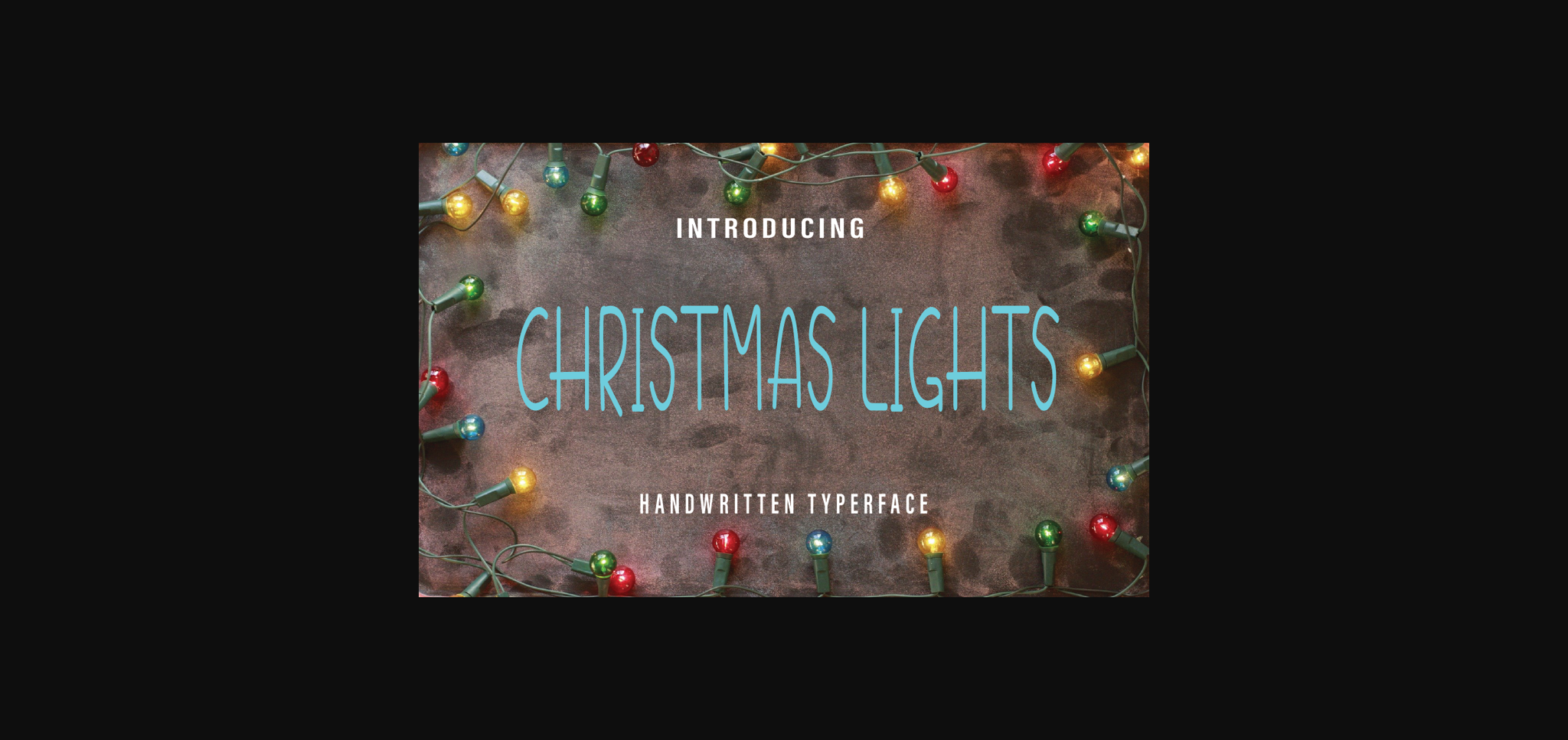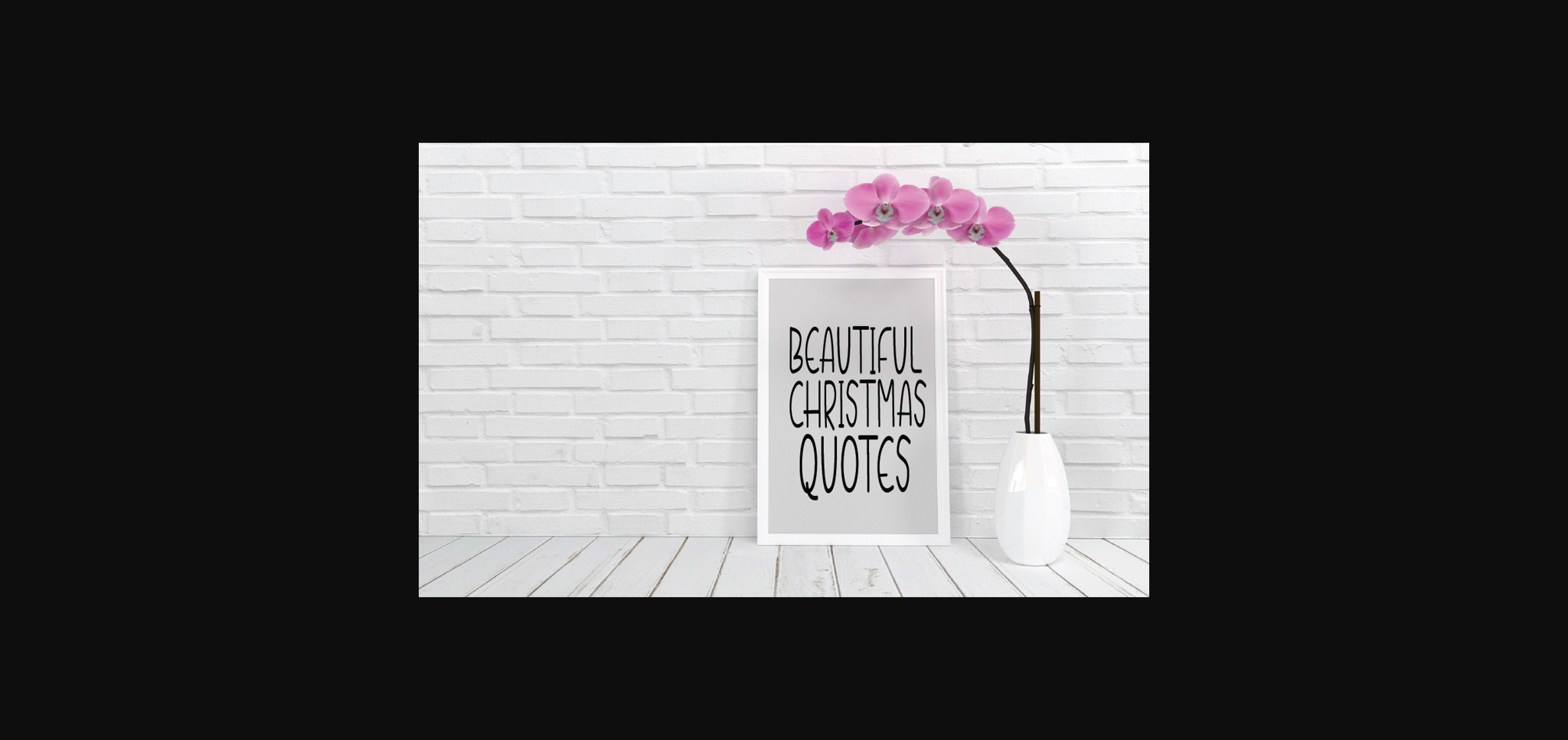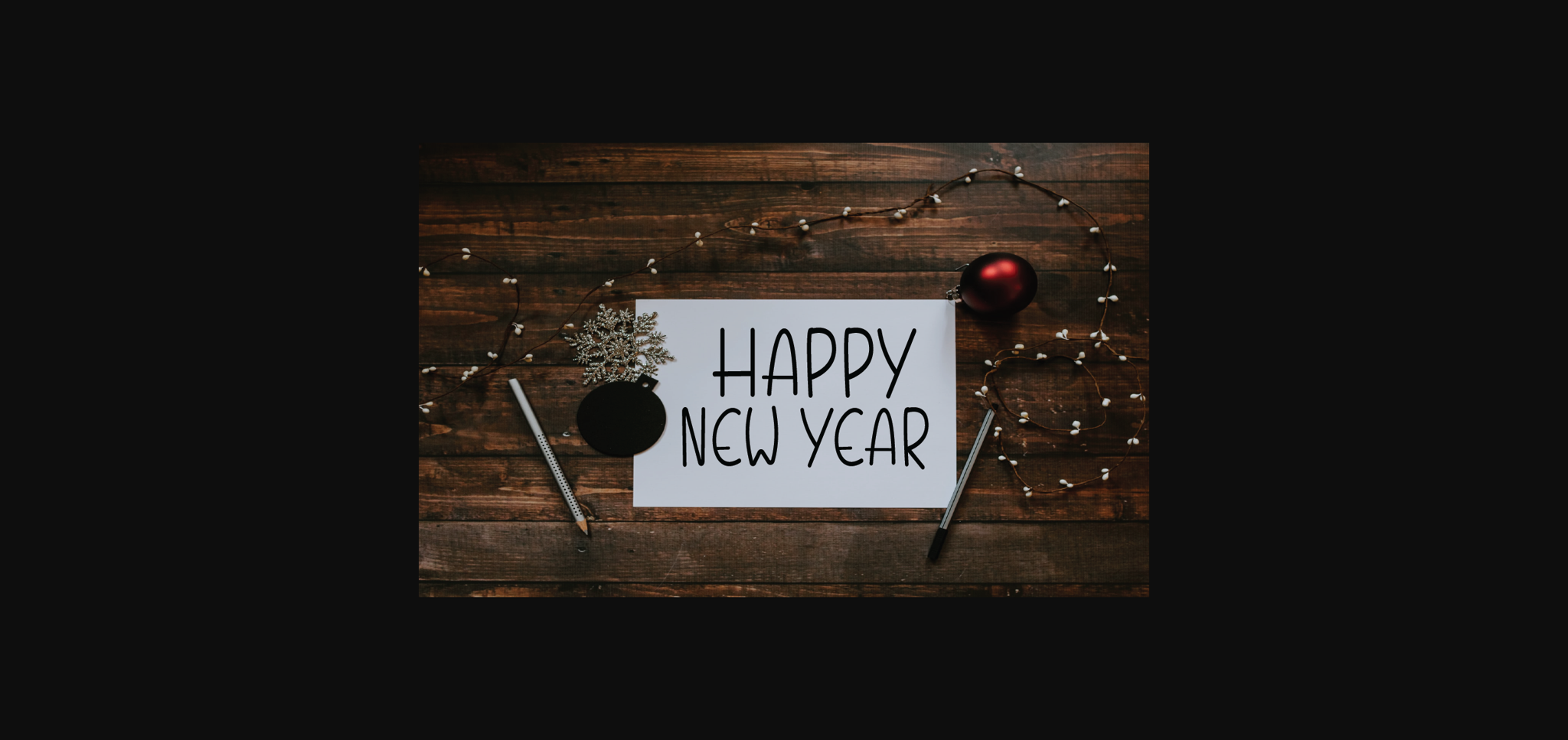
About Christmas Lights Font
Christmas Lights is a cute and simple sans serif font. Its natural and unique style makes it incredibly fitting to a large pool of designs. Thin and delicate, this font will most certainly become your go-to choice in each of your holiday decorations.